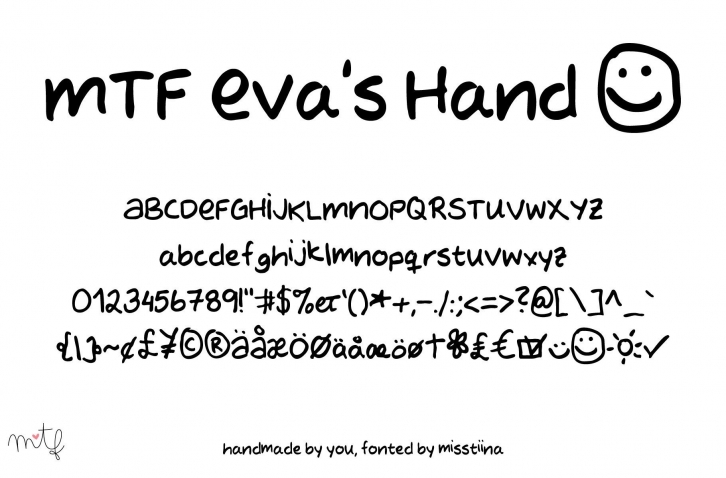
Eva’s Hand is an admirable handwritten font that will impress you with its friendly characters! Use it for any project with a youthful and relaxed theme.